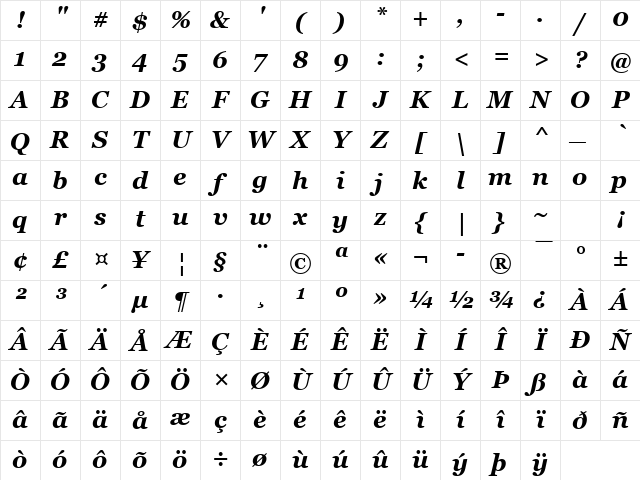
MS Reference Serif Bold Italic
Foundry: Microsoft Corp.
Designer: Matthew Carter
Design Context for MS Reference Serif
MS Reference Serif carries the refined structure of traditional serif typography, with bracketed terminals and considered proportions that communicate credibility and craft. The slanted form adds forward momentum and visual energy. Its bold stroke weight gives it real presence on the page.
Pro Tip: Use MS Reference Serif for editorial body copy and considered headline work. Pair with a neutral sans for UI elements or captions to create a classic hierarchy.